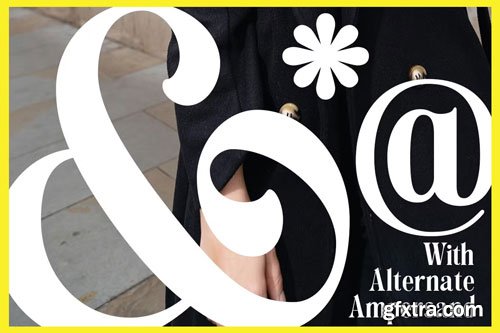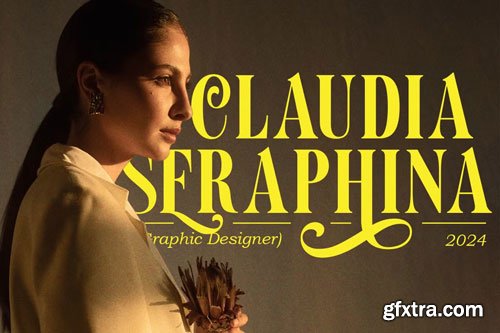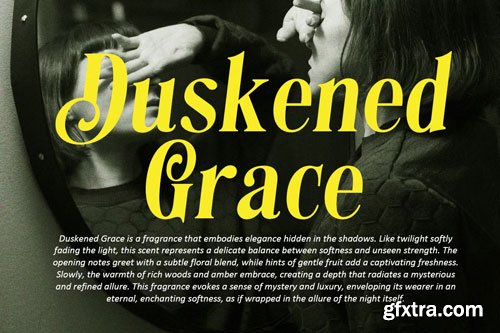
CreativeMarket - Montore Sophisticated Serif
Montore is a refined and stylish serif font that exudes elegance and timeless appeal. With its bold yet graceful letterforms, intricate alternates, and smooth ligatures, this typeface is perfect for high-end branding, luxury packaging, editorial design, and elegant invitations.